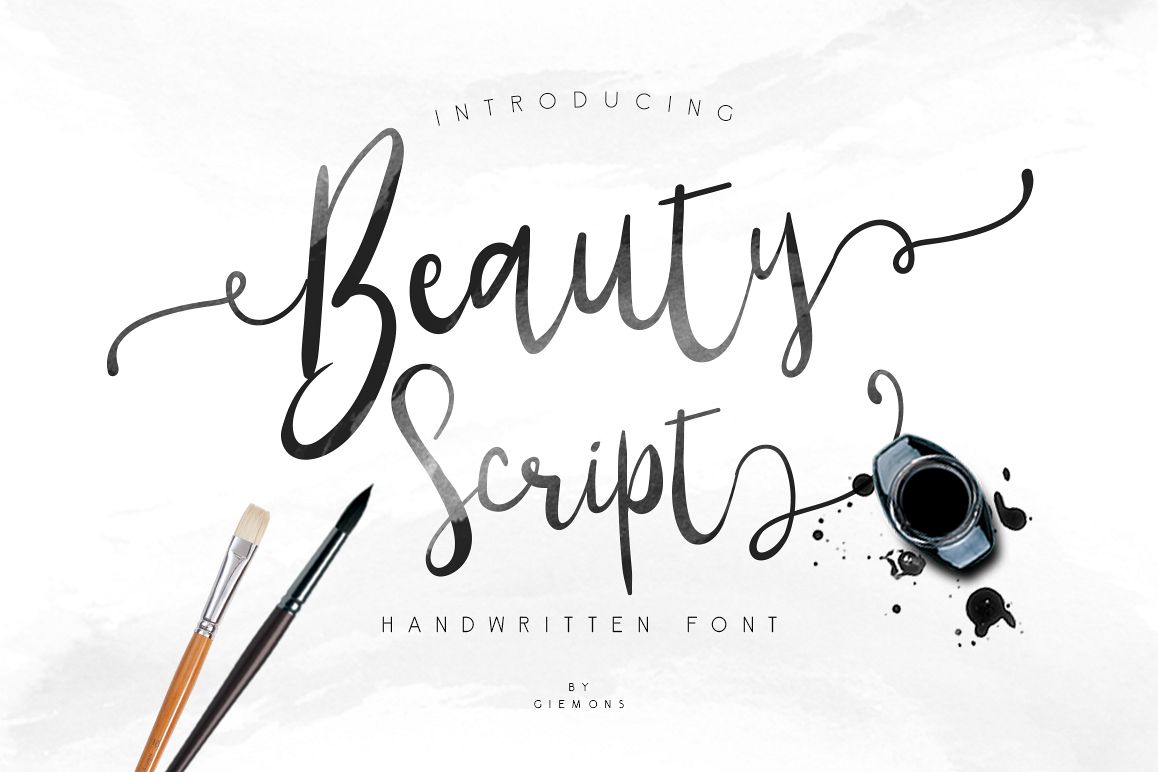
Beauty Script
a Beauty Script handwriten font a good for make your design looks "girly". Easy to combine with alternates glyphs and swash. nice for design invitation card, wedding, birthday, tittle book, and many more.include this font
• uppercase & lowercase
• lowercase stylistic set alternates
• number & simbol
• ligatures & swash